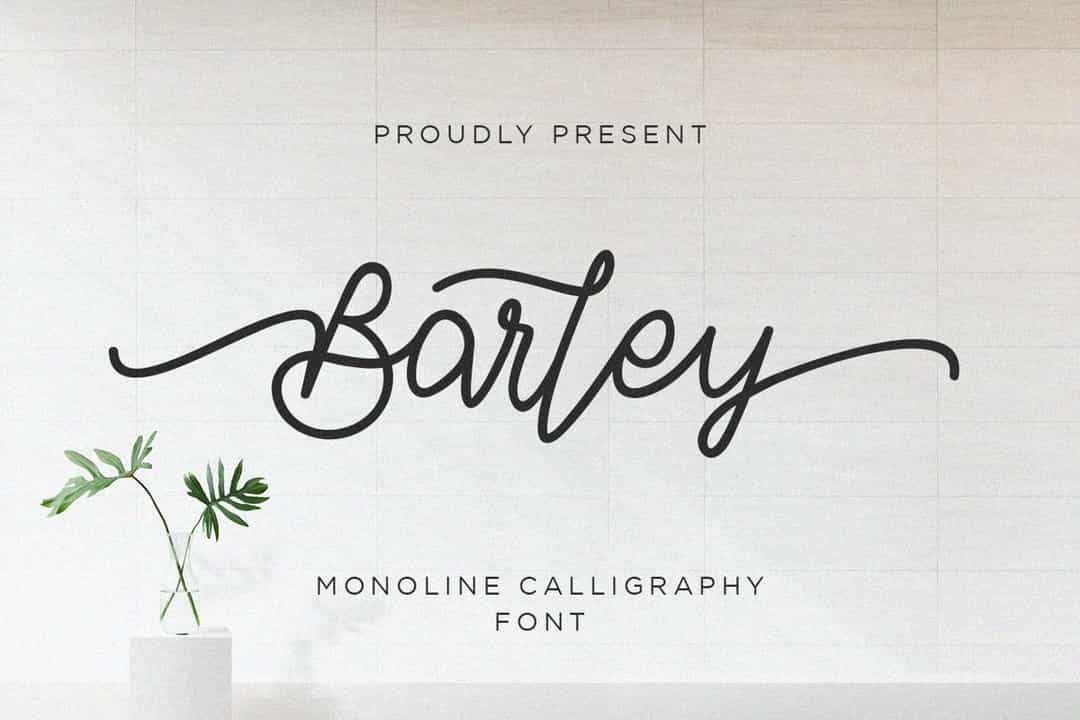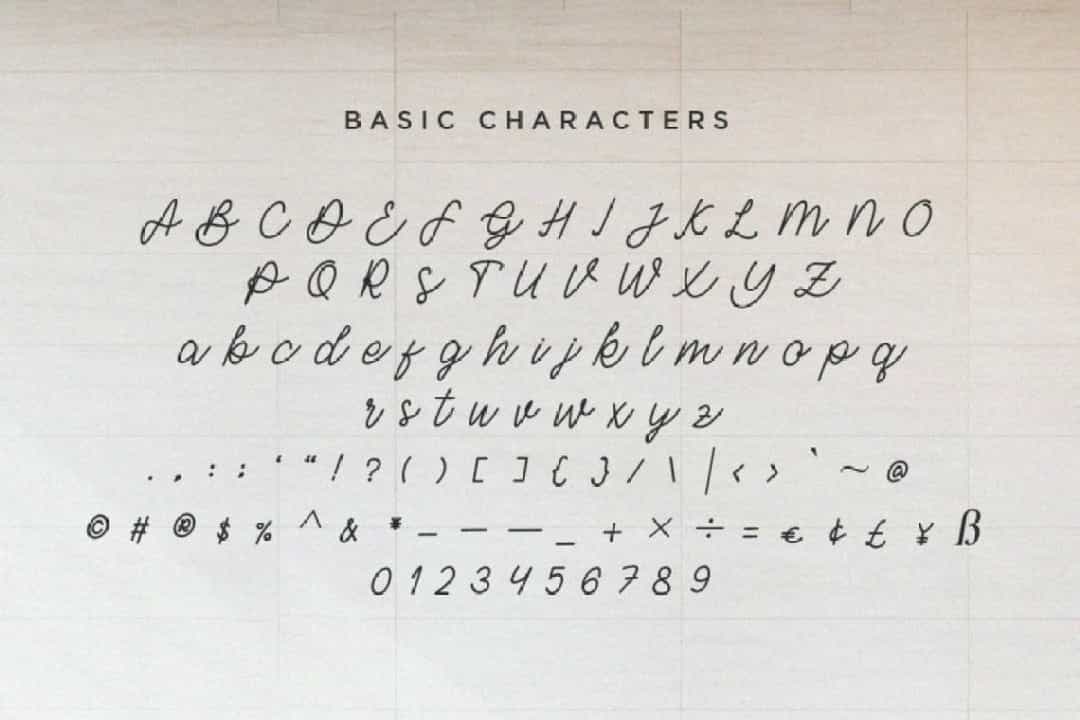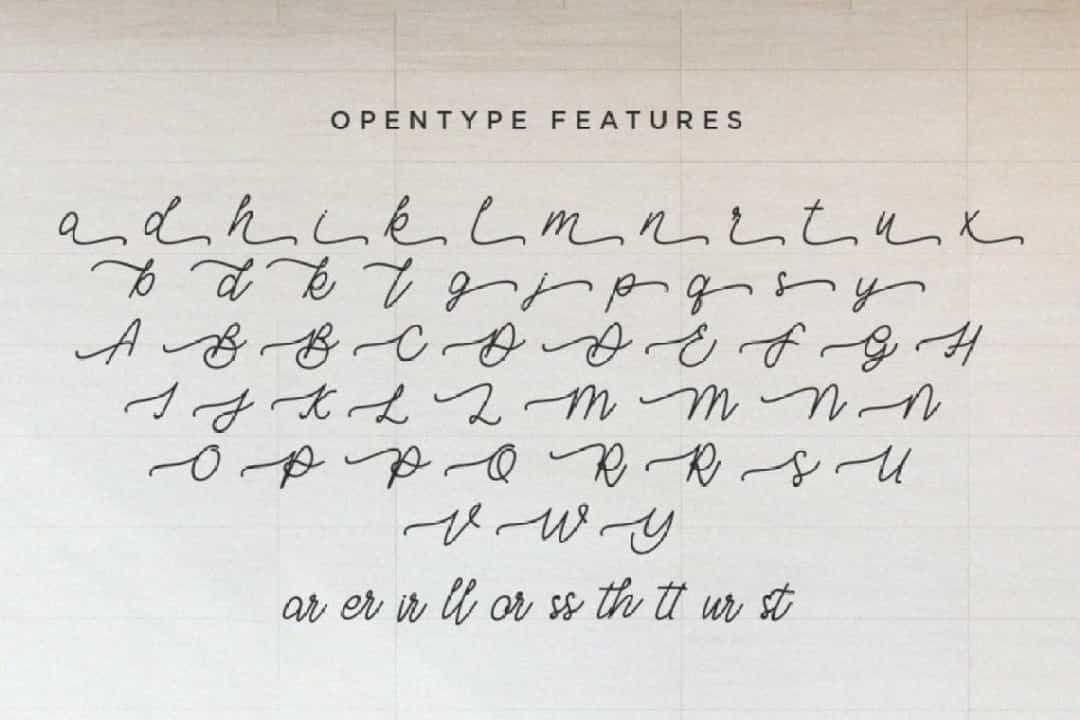
Discover Barley Font, part of the Calligraphy Handwritten Monoline collection—a versatile and unique font perfect for adding a personal touch to your projects. Download it for free and enjoy crafting designs with style, from invitations to social media posts. This font is available exclusively for personal use, giving you the freedom to create without limits. Unlock your creativity with Barley Font today!
Barley is a classy handwritten font which will give your designs a very natural and casual look; ideal to use in branding, logo design and lettering logotype projects, clothing magazine layouts, packaging, posters/bags/posters, t-shirts, book covers, photography, special events and more.